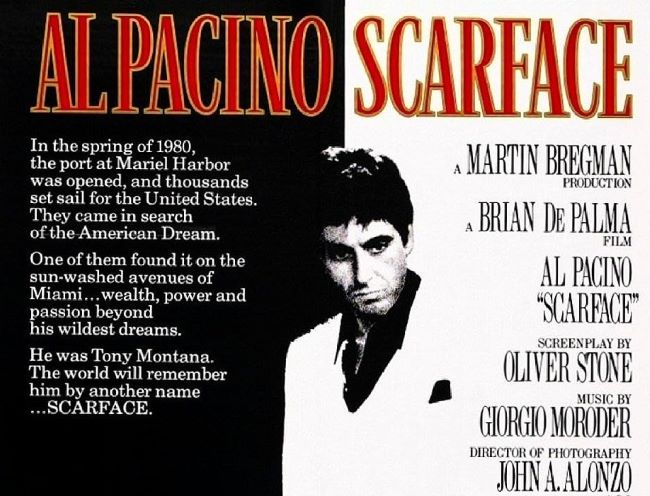
Scarface Font
The Scarface font is as bold and unforgettable as Tony Montana himself. When Brian De Palma’s 1983 crime epic opens, the typography immediately sets the stage: tall, sharp serif letters that carry the weight of power, danger, and ambition. It’s not just a title—it’s a warning, a declaration, and a promise of excess. The style resembles fonts like Engravers Old English and Optima Bold, both of which bring that combination of elegance and authority. The letters stand tall and commanding, much like Montana rising from nothing to build his empire, with every curve and stroke feeling like it belongs on a movie poster drenched in neon, cocaine dust, and Miami heat.
What makes the Scarface font so striking is how it straddles two worlds: the sophistication of high society and the brutality of the streets. Just like Tony, it has one foot in glamour and the other in violence. Using the Scarface font in your projects means more than adding dramatic flair—it’s about embracing a design language that screams ambition, excess, and style, much like the man who once said, “The world is yours.”
About Scarface
Scarface is a 1983 American crime drama film directed by Brian De Palma, written by Oliver Stone, and starring Al Pacino as Tony Montana. The film follows a Cuban refugee who arrives in 1980s Miami and violently rises through the cocaine drug trade to become a powerful kingpin, only to fall victim to paranoia and his own excess. Known for its iconic dialogue, memorable scenes, and Giorgio Moroder’s synthesizer score, Scarface initially received mixed reviews but became a cult classic. The film’s exploration of the American Dream’s dark side, immigrant ambition, and violent capitalism has made it one of the most influential crime films in popular culture.